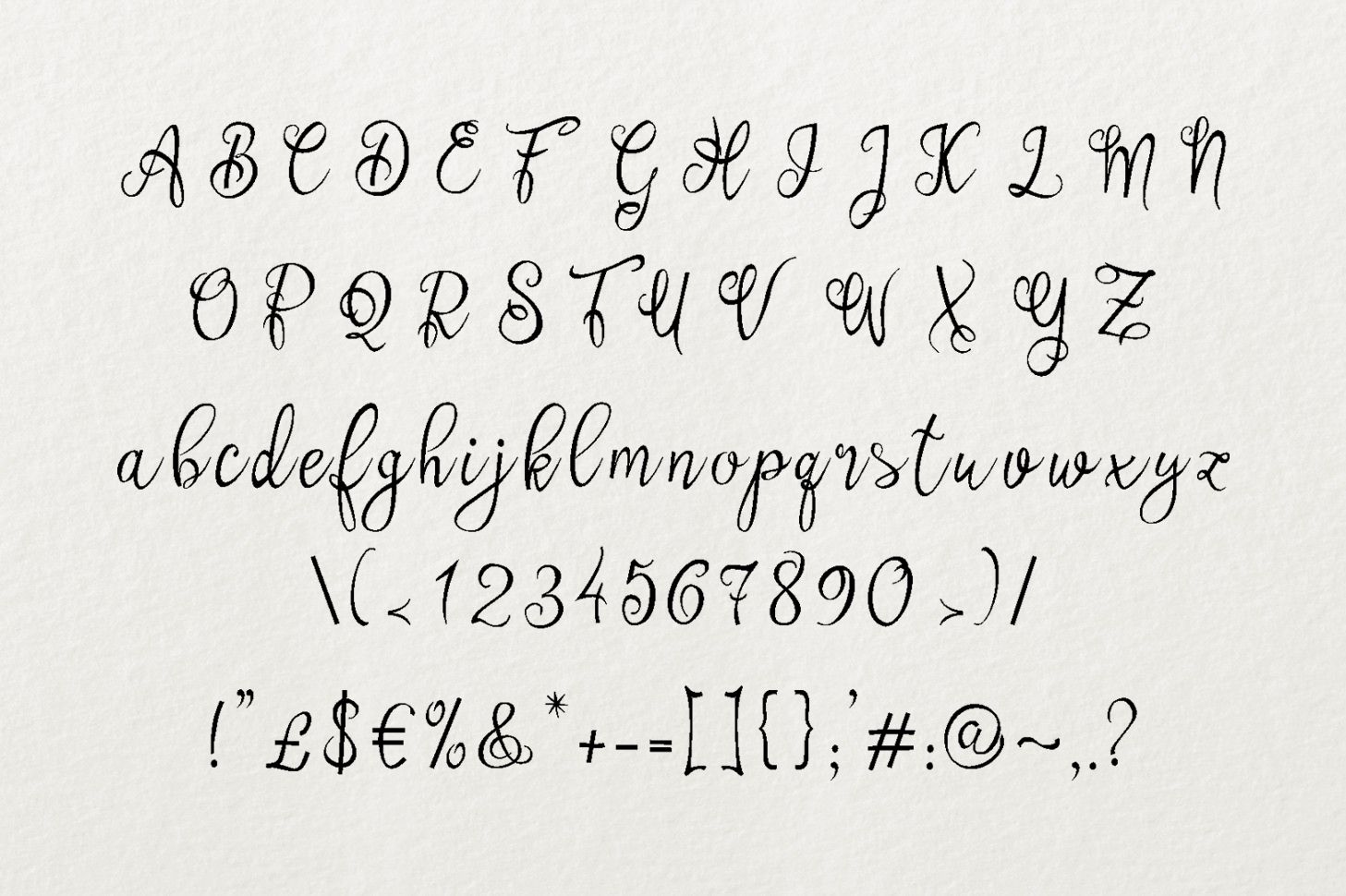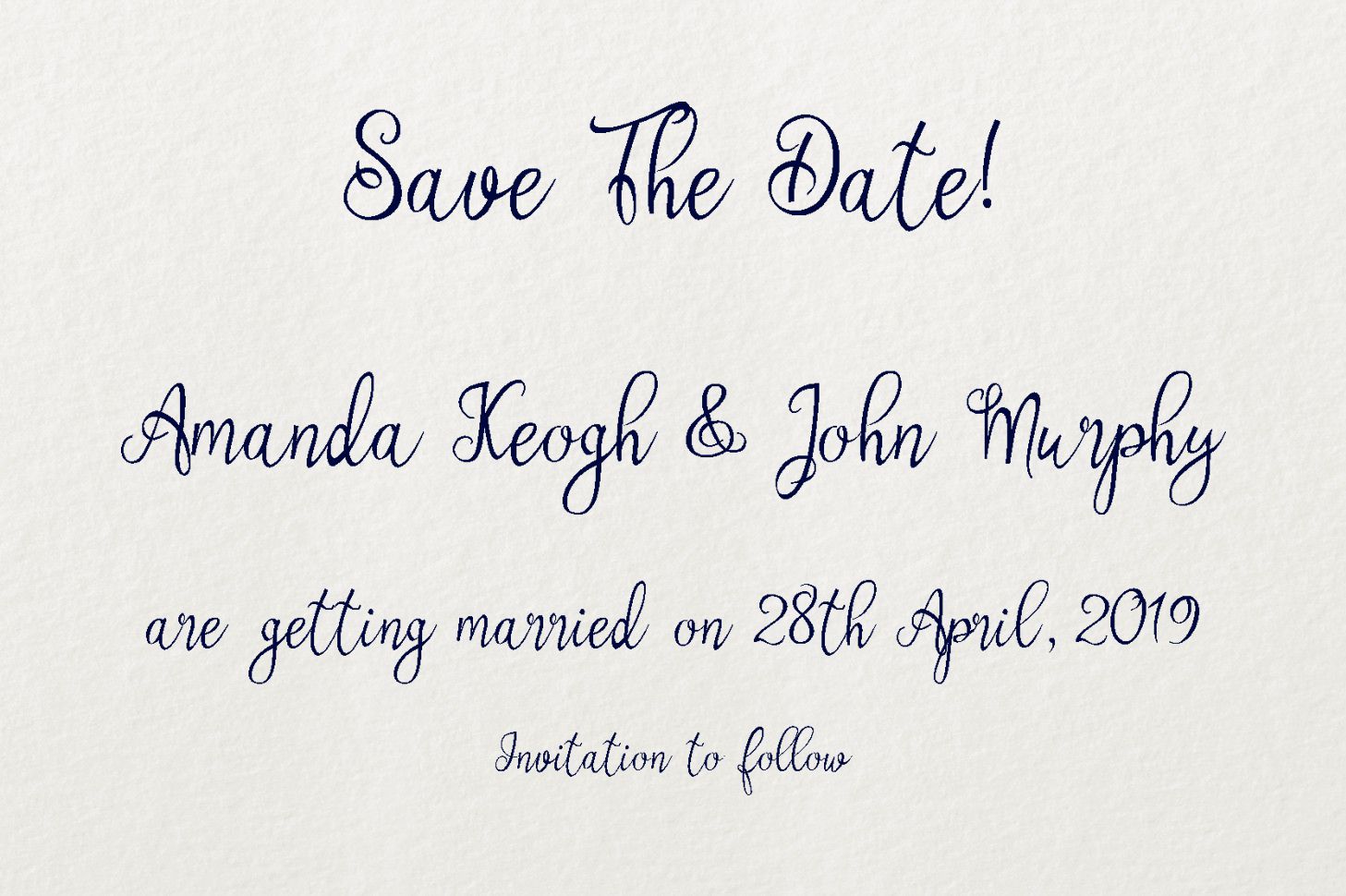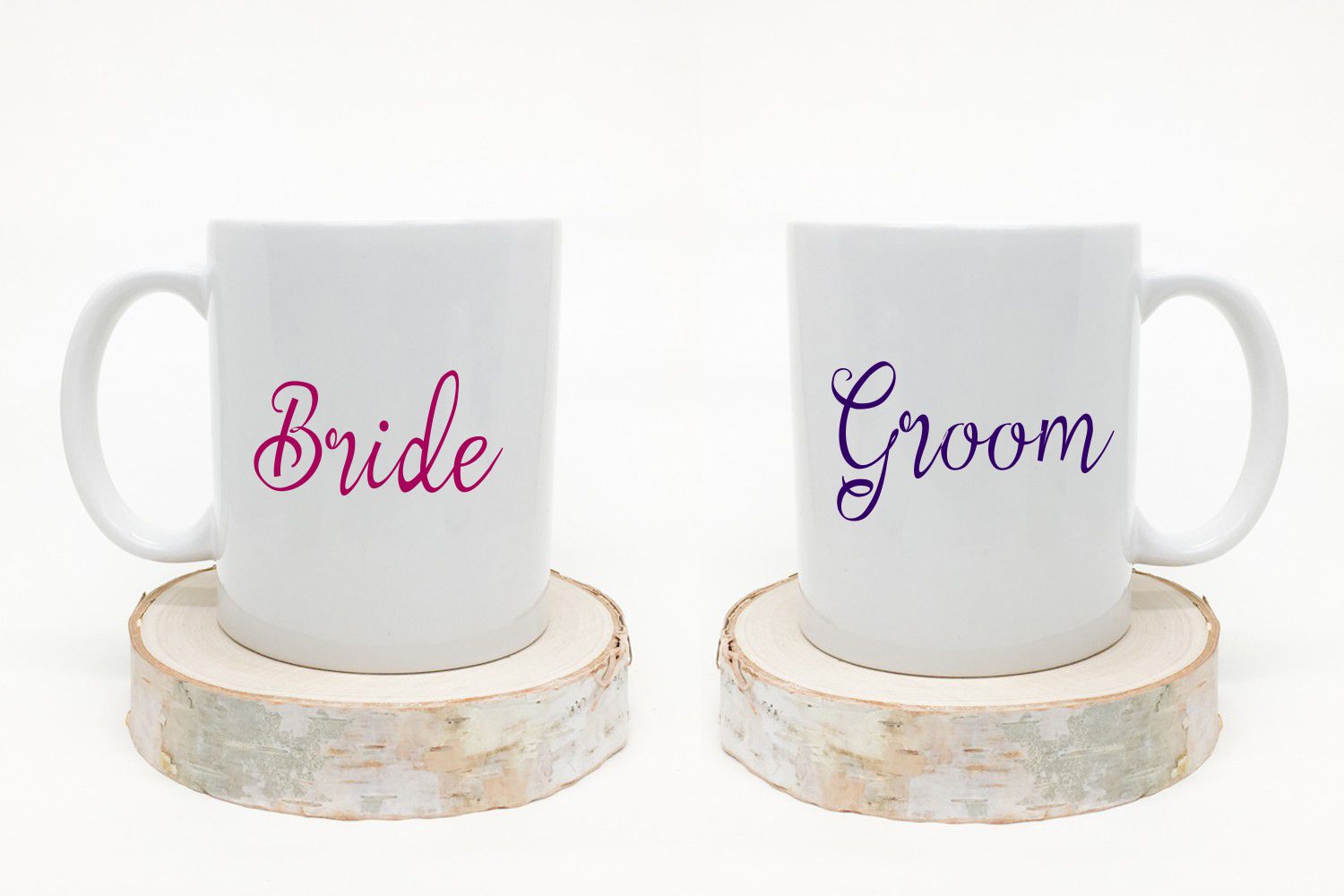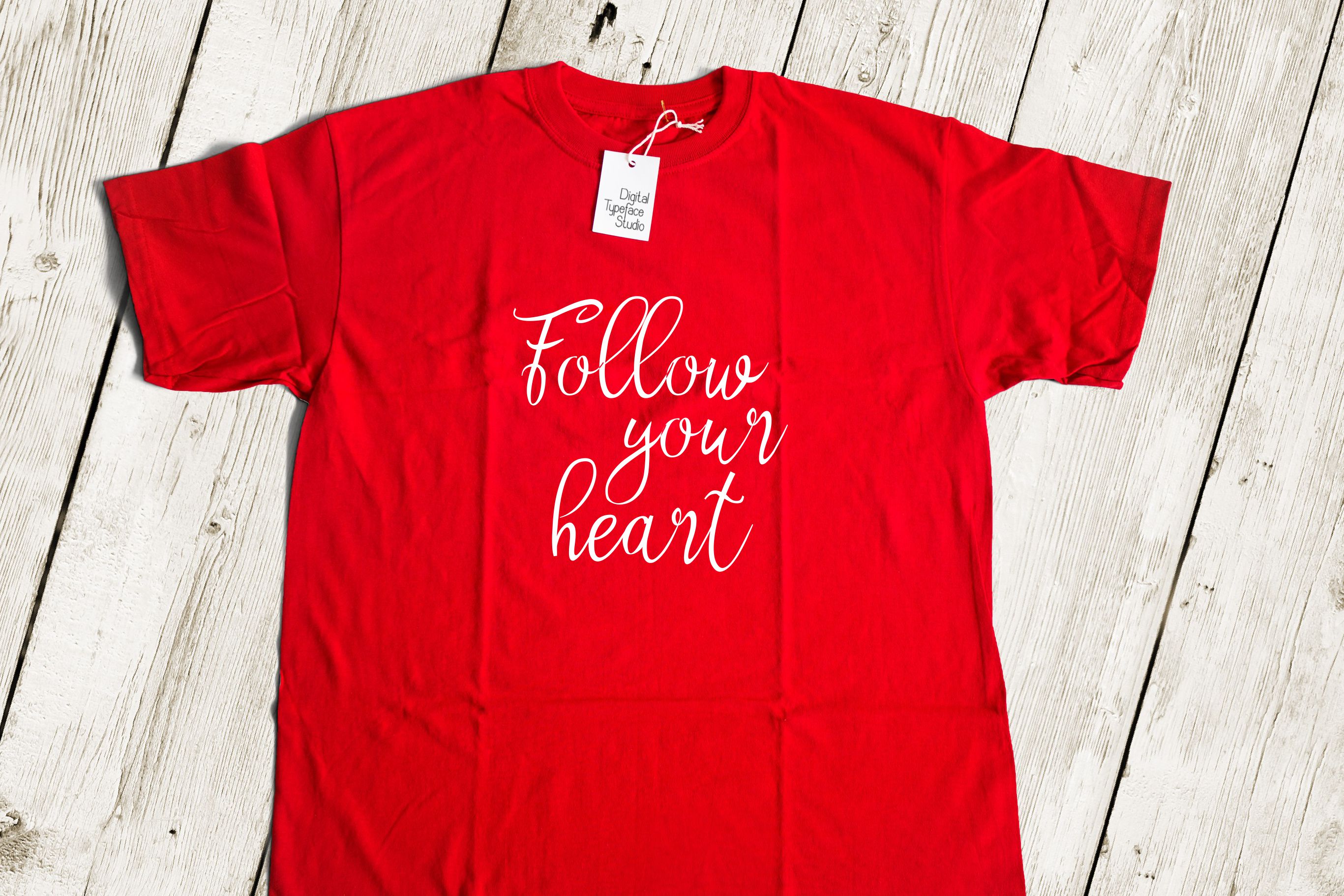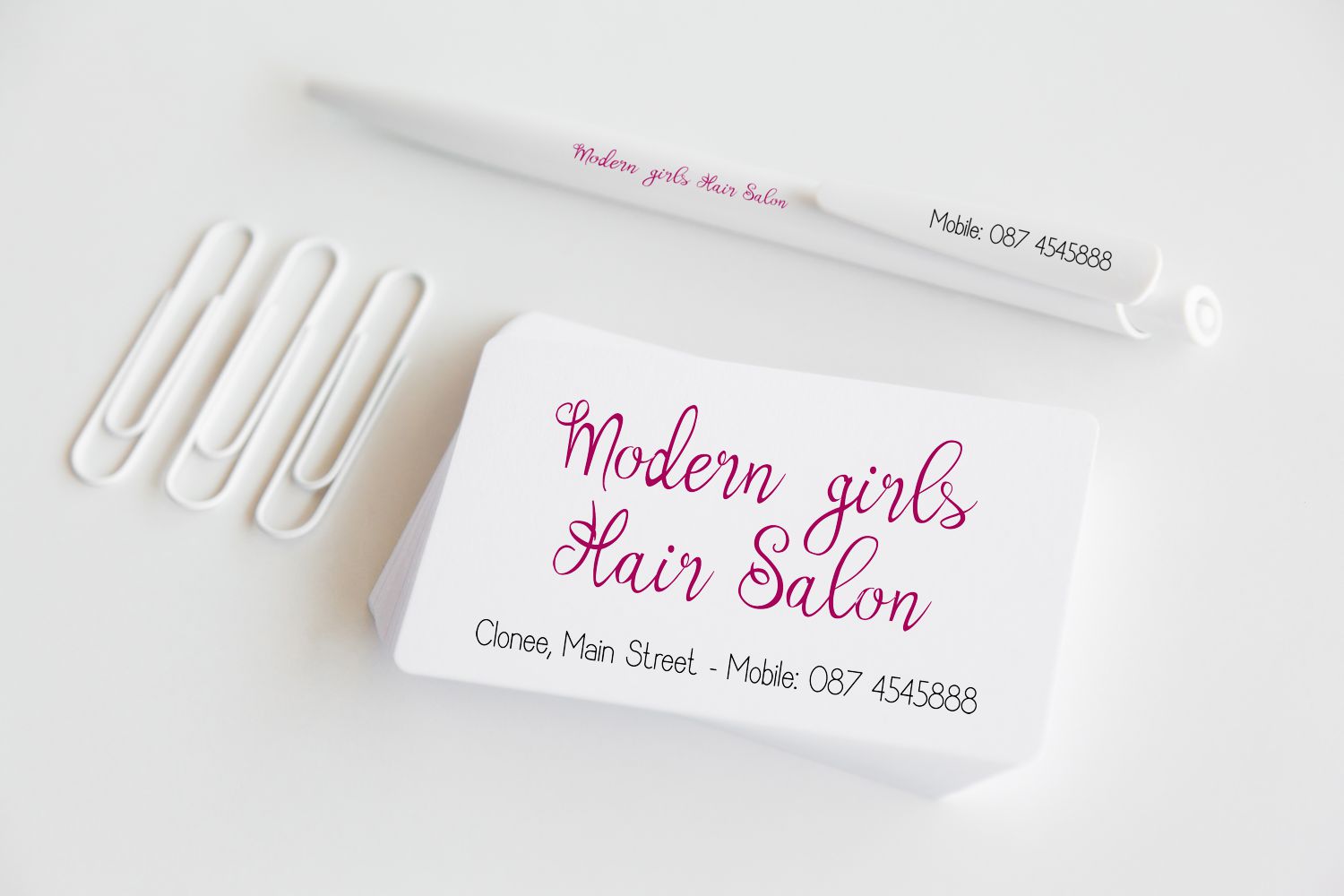
Introduction to Olyber Font
As a designer, have you ever found yourself stuck in front of a blank page, struggling to bring your creative vision to life? It’s a familiar feeling, but one that can be overcome with the right tools and inspiration. For many of us, the perfect font can be the difference between a mediocre design and a masterpiece.
Enter Olyber Font, a stunning handwritten script that has the power to elevate even the most basic designs into something truly special. With its unique, high-quality aesthetic, Olyber Font is a valuable resource for designers looking to add a touch of elegance and sophistication to their creative projects.
Key Features of Olyber Font
- High-quality design resource ideal for creative projects and presentations
- Unique, modern design with a transparent background, perfect for overlaying on images or videos
- Perfect for designers, artists, and creatives looking for a unique and stylish font for their next project
Honest Review: Olyber Font
I recently stumbled upon the Olyber Font, and I must say it’s been a delightful addition to my design resource library. This high-quality font is perfect for creative projects that require a touch of sophistication and elegance.
One of the standout features of the Olyber Font is its versatility. It works beautifully for both web and print applications, and its transparent background makes it easy to integrate with any design element.
- ✨ What works well: The Olyber Font’s modern and sleek design makes it an excellent choice for creative projects. Its high quality and readability make it perfect for both digital and print media.
However, I do have a few minor complaints. The font is limited in terms of its character set, which may not be ideal for complex design projects.
- ⚠️ Limitations: The font only includes a limited range of characters, which may not be suitable for projects that require extensive typing.
Overall, I’m thoroughly impressed with the Olyber Font. Its high quality, versatility, and free download make it an excellent addition to any designer’s library. While it may have some limitations, I believe it’s a fantastic resource for creative projects.
Olyber Font is a high-quality design resource ideal for creative projects. With a transparent background, it offers flexibility and versatility in various design applications.
Tips for Getting the Most Out of Olyber Font
Use Olyber Font in conjunction with other design elements to create a visually appealing design. Experiment with different font sizes, colors, and styles to achieve the desired effect.
Olyber Font is suitable for various design projects, including logos, brochures, business cards, and social media graphics. Its high-quality design and transparent background make it an ideal choice for creative professionals and hobbyists alike.